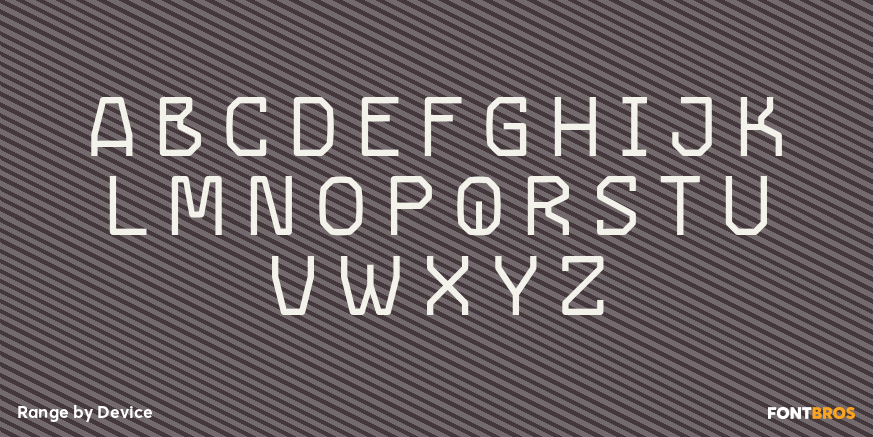
Range
Font Family by Device
Range is a futuristic sans serif with a clean, modern voice and a strong display presence. Its streamlined shapes and weight-driven structure give it a crisp, contemporary feel that reads as bold, technical, and forward-looking.
Offered as a 5-style family by Device, it includes Light, Medium, Bold, Extra Bold, and Black weights, giving you room to move from sleek and minimal to dense and commanding. That range makes it especially useful for branding, headlines, posters, packaging, and other design work that benefits from a modern, high-impact typographic tone.
If you’re looking for a type family that leans futuristic without feeling overly gimmicky, this one brings a confident, graphic look that works well anywhere you want a sharp contemporary edge.